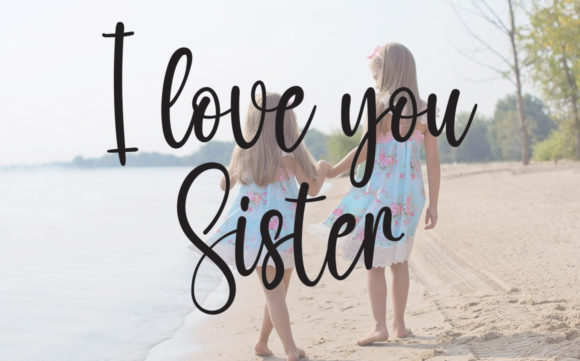
About Writing Signature Font
“Writing Signature” is an elegant and flowing handwritten font that adds a touch of sophistication and style to a wide range of design projects. Its graceful and unique letterforms make it a versatile choice for enhancing the visual appeal of various applications.
When it comes to wall displays, “Writing Signature” can create captivating and artistic visual elements. Whether you’re designing artwork for a home, gallery, or event space, the font’s flowing strokes and artistic flair can add a sense of elegance and creativity to your displays.
For weddings, “Writing Signature” can be a wonderful choice for crafting exquisite and memorable wedding invitations. Its calligraphic and refined appearance sets a romantic tone and adds a touch of luxury to the invitations, making them stand out and capturing the essence of the event.
In the realm of branding, “Writing Signature” can be used to create social media post logos and advertisements that leave a lasting impression. Its unique and elegant typography can effectively convey your brand’s identity and message, giving it a sophisticated and distinctive look.
For product packaging and design, “Writing Signature” can add a touch of class and refinement to labels, product packaging, and product designs. Its flowing and intricate details can enhance the visual appeal of your products and make them more appealing to customers.
In photography and watermarking, “Writing Signature” can create elegant and personalized watermarks that add a signature touch to your images. The font’s graceful curves and stylish lettering can enhance the overall aesthetic of your photographs.
Whether for invitations, stationery, labels, or any project that demands impressive typography, “Writing Signature” can elevate the visual quality of your designs with its flowing and graceful letterforms. Its versatility and elegant style make it a valuable asset in a designer’s toolkit.